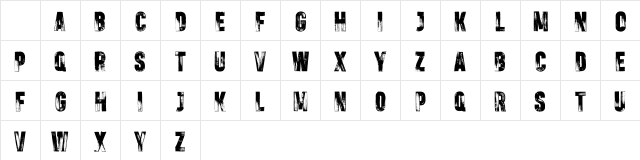
JUNO Demo is a composed and adaptable typeface that performs quietly and consistently across a wide range of design contexts.
Pro Tip: Use JUNO Demo in both headline and body roles to test its range before committing to a single application.